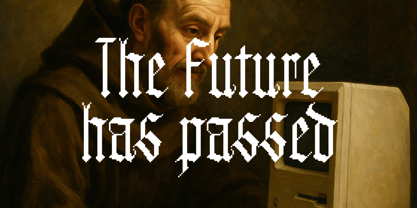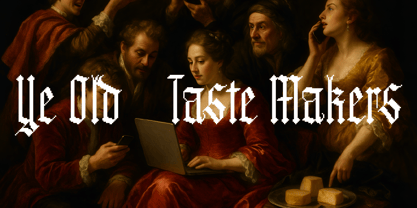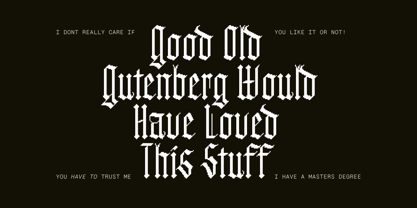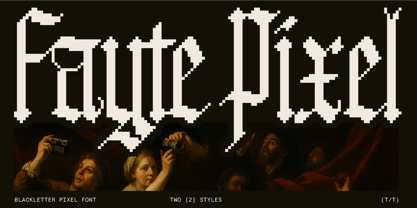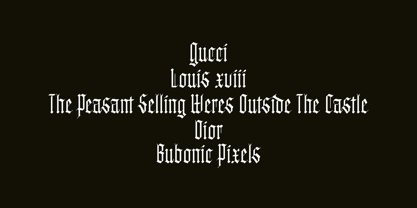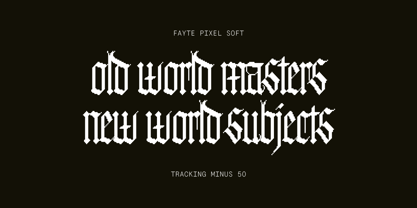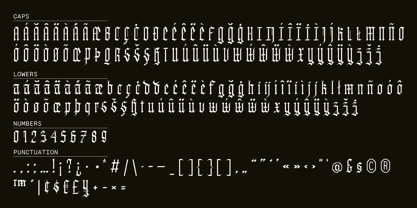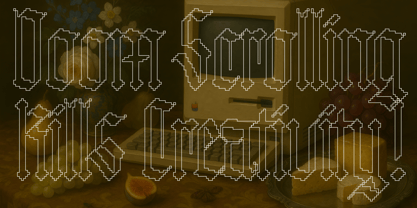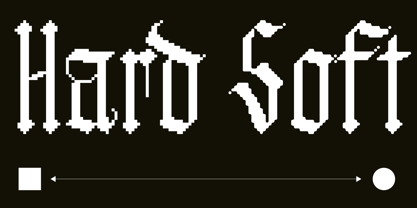
Fayte Pixel
by That That Creative
The Fayte Pixel Font Family was designed by Harbor Bickmore and published by That That Creative. Fayte Pixel contains 2 styles and family package options.
Verily, behold this noble script of pixel’d craft, wrought in the fashion of blackletter, yet tempered with the spirit of olde and the cunning of the new age. It doth come in twain fair styles: the Hard, sharp as a knight’s tempered blade, and the Soft, smooth as fine vellum beneath thy quill. In each glyph lies the steadfast echo of monastery scribe and market stall banner, yet clad in the raiment of retro block and square. For proclamations, scrolls, and the adornment of digital realms, this font standeth as a bridge betwixt pixel’d modernity and the hallowed hand of antiquity.
Designers: Harbor Bickmore
Publisher: That That Creative
Foundry: That That Creative
Design Owner: That That Creative